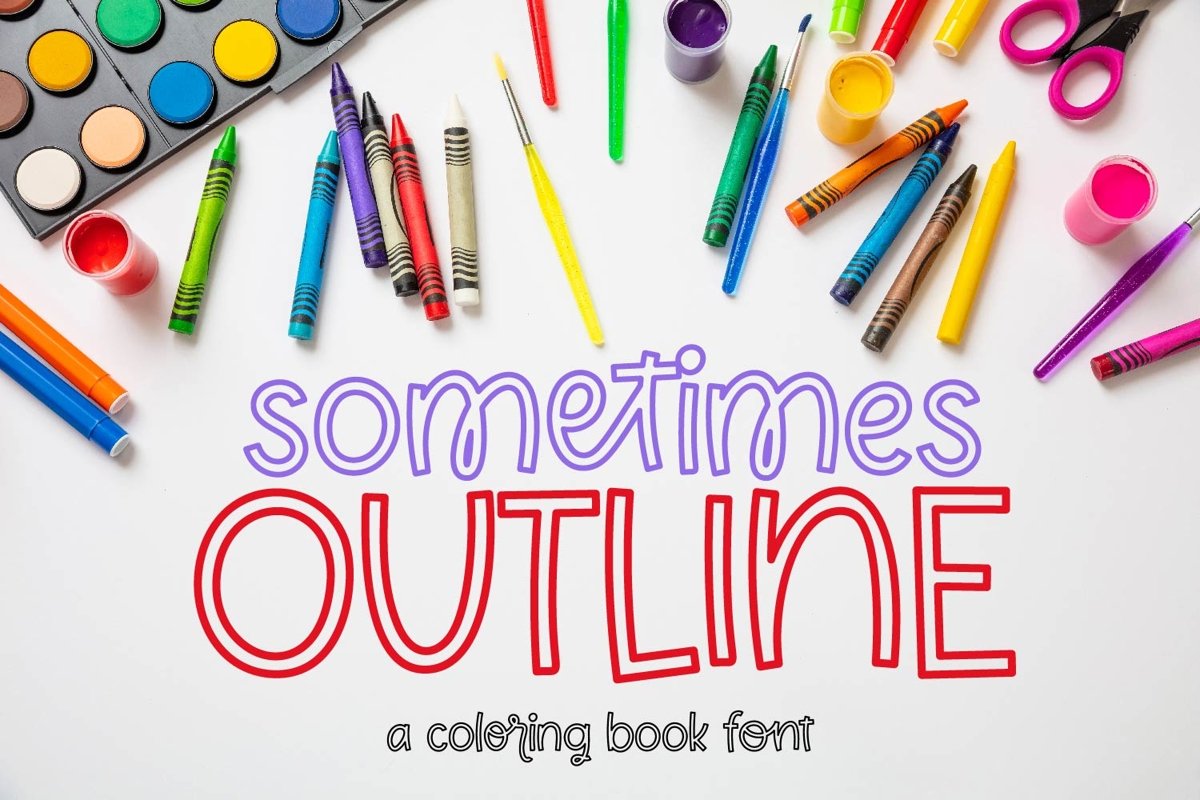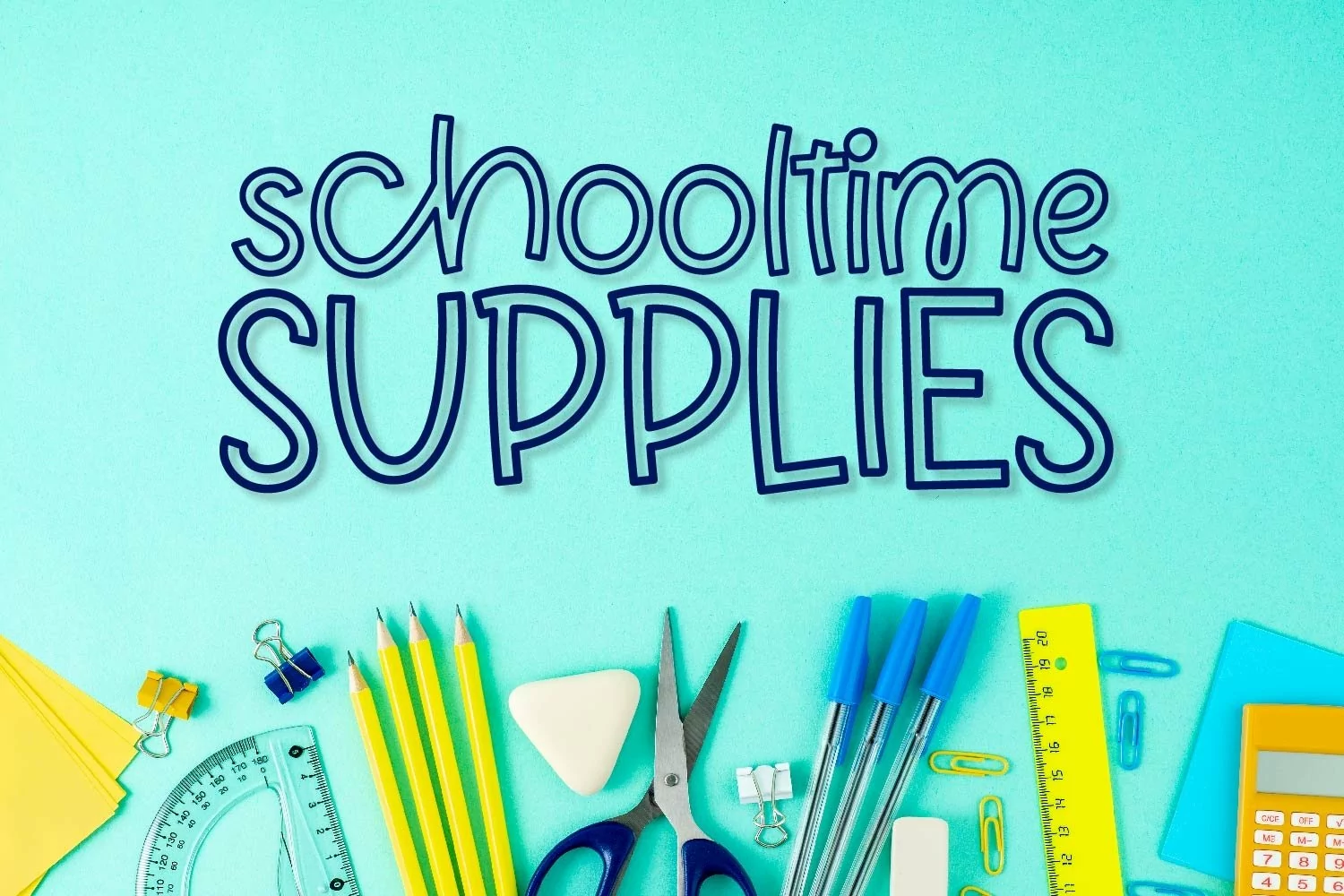
Sometimes Outline - A Coloring Book Font
Sometimes Outline is a clean outline version of our "Sometimes" font here on FontBundles! It makes a great coloring book font - with each unique character and ligature outlined.